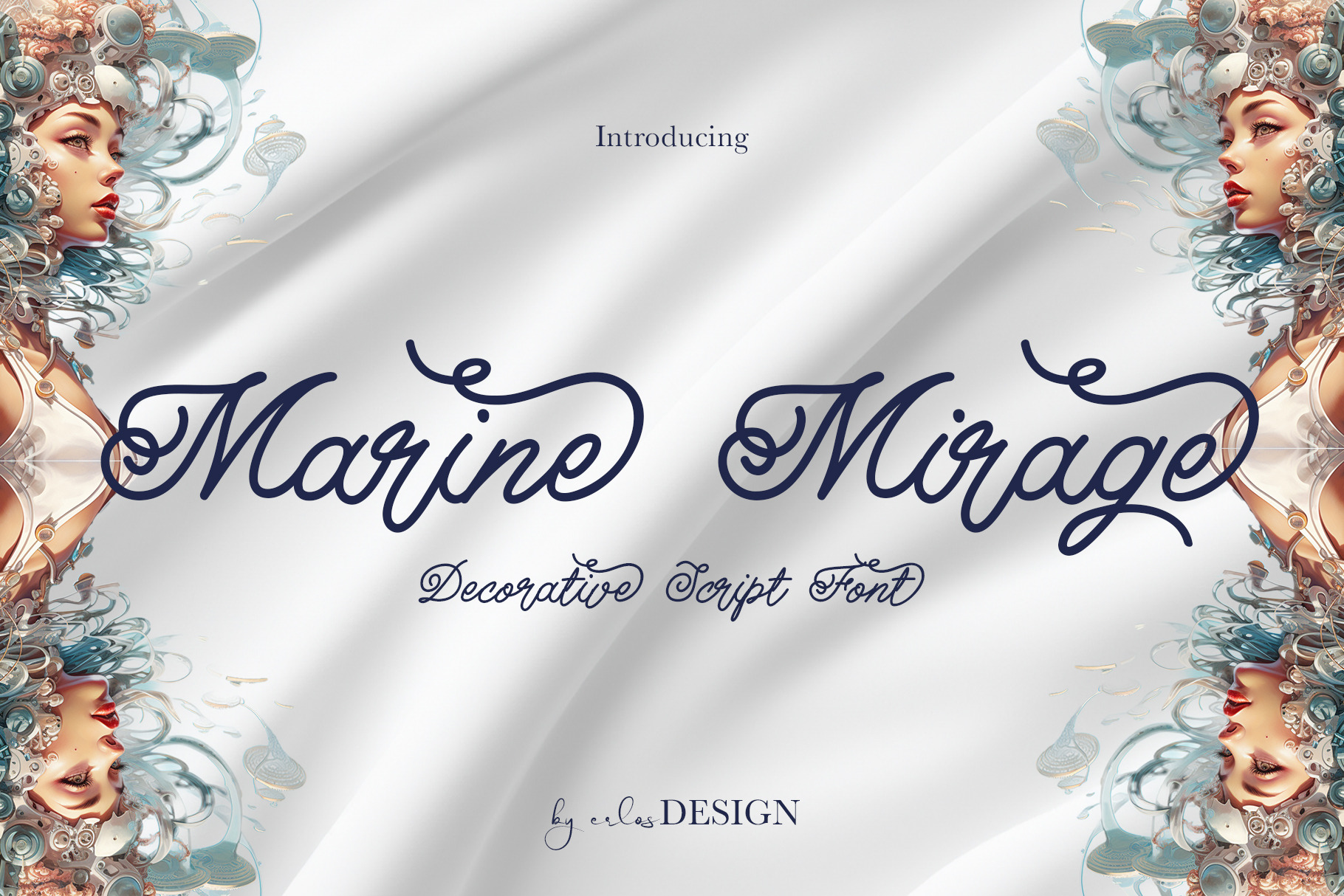
Marine Mirage Font
Introducing our elegant signature font, designed for those who appreciate the art of handwriting. With graceful strokes and a touch of decorative swash, this font captures a personal, sophisticated flair that leaves a lasting impression. Perfect for branding, personal logos, and high-end invitations, this signature font effortlessly combines elegance with individually. Each letter flows seamlessly, adorned with gentle flourishes that add an extra touch of artistry to every word. Stand out and let your signature say it all - refined, unique and unmistakably yours.